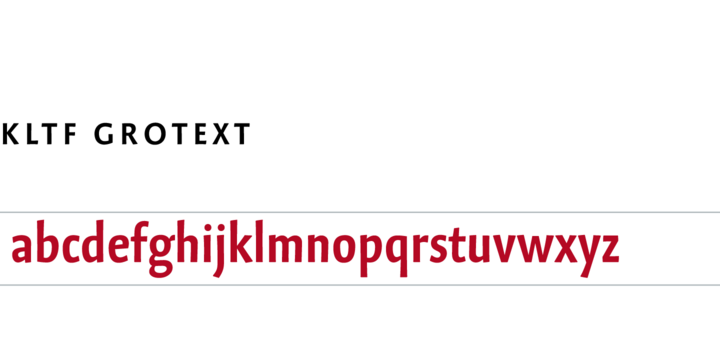
This is not one of the polished sanserifs. Grotext preserves a human touch. And history. While most contemporary typefaces assimilate uppercase and lowercase, Grotext emphasizes the difference between them. Its uppercase are wide and of classical proportions. Its lowercase are narrow and make it a space-saver. This is reminiscent of blackletter lowercase combined with uncial uppercase forms.
With help of four stylistic set features, Grotext can change its appearance. Alternates of a g h m n u give it a more robust character. Alternate schoolbook a d g l allow text to look simplified and more technical. More…
Under the hood, Grotext premières automatic spacing of uppercase letters in all caps context. It is one of the first Latin script OpenType fonts which make extensive use of contextual positioning.